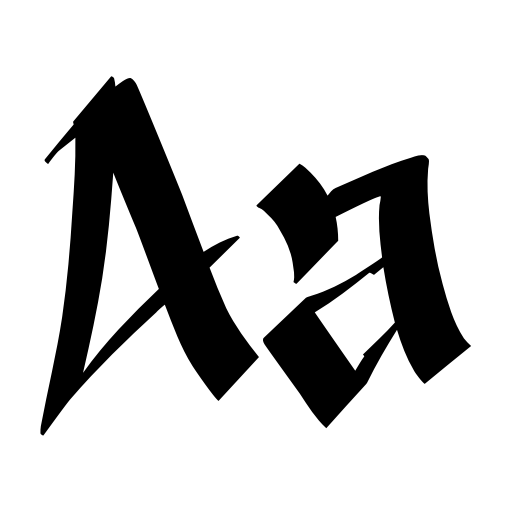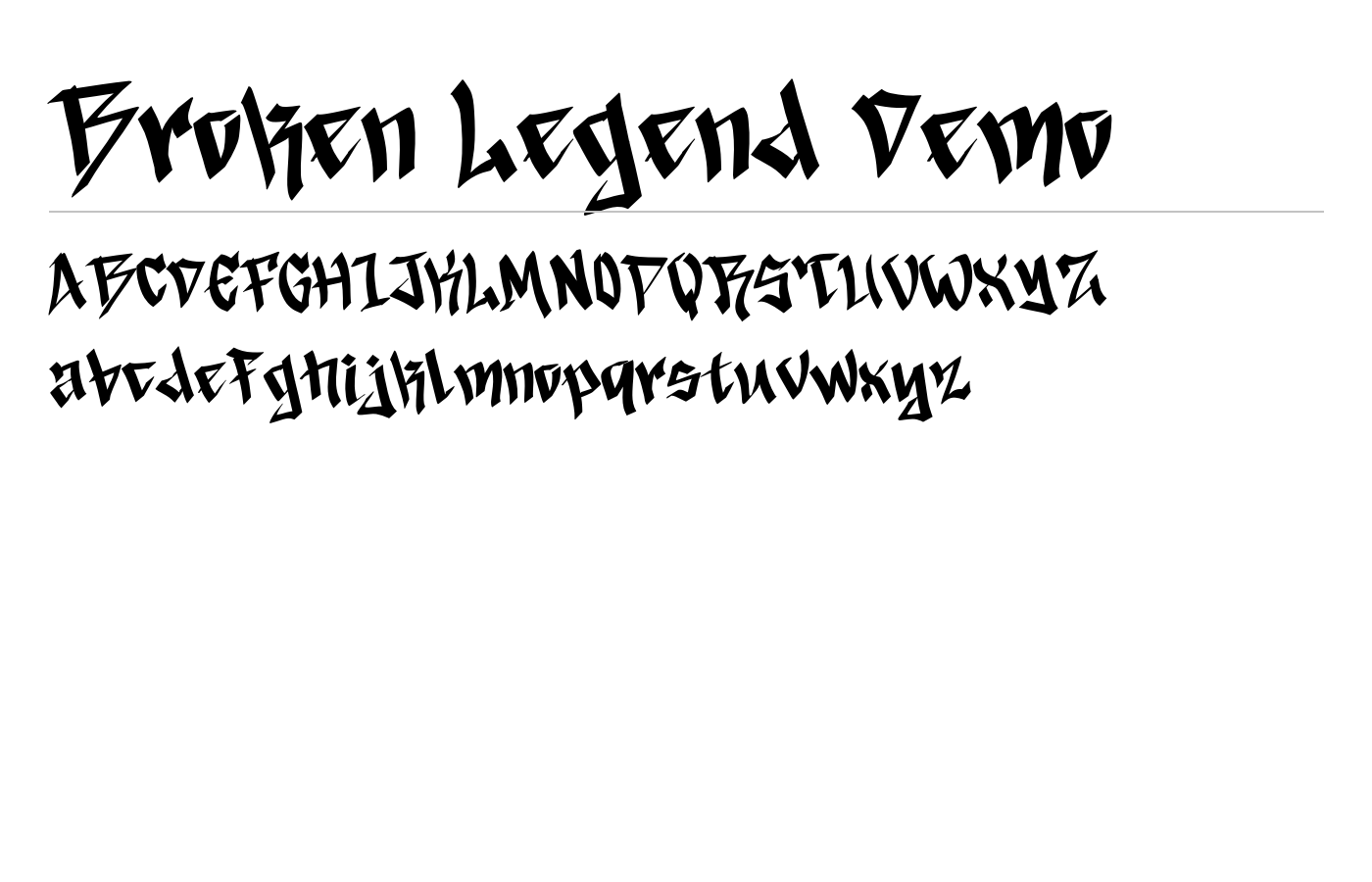
Broken Legend Demo is a bold, angular display font with a dramatic, hand-drawn feel that combines sharp, jagged strokes and irregular shapes. Its gothic-inspired style and dynamic letterforms make it perfect for edgy, artistic designs like posters, logos, and branding that aim to convey rebellious energy and creativity. This font works best in large sizes where its distinctive personality can truly stand out.